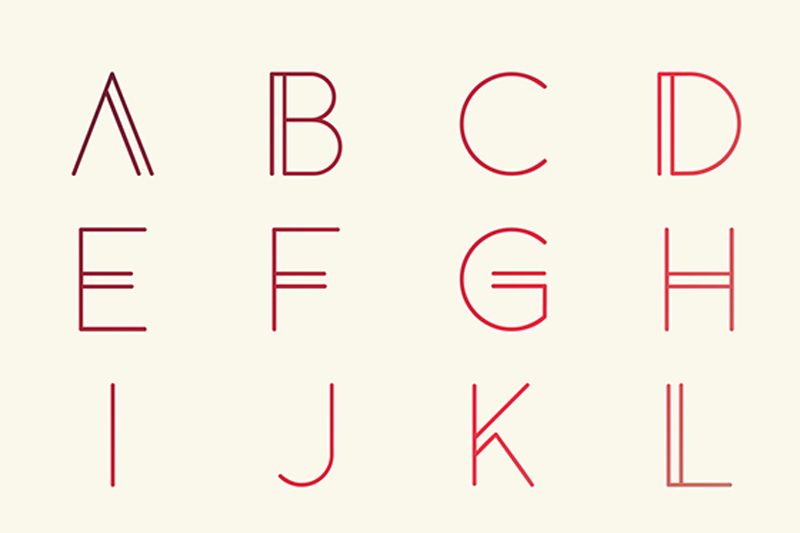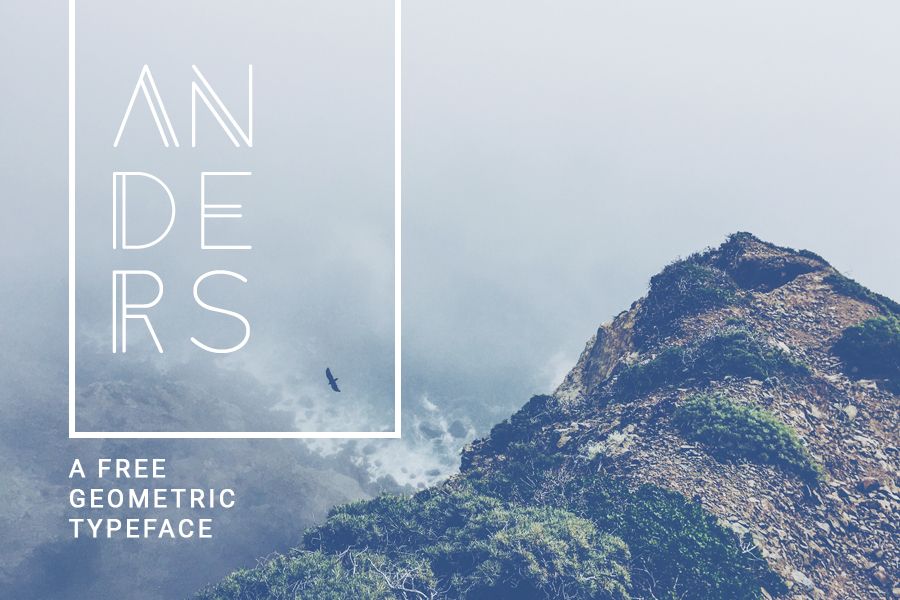
Anders Typeface Font
Anders Typeface font is the top rated font in google fonts. This font is considered as the unique text generator. This font makes the content look elegant. This font is a beautiful collection mainly designed for clean and comfortable on-show assessment.
A serif font is without trouble identified with a beneficial resource. I assume all of this will alternate within the next few years however the reality that immoderate-desire monitors have emerged as greater common. Once they initiated the trade. Anders Typeface Font Free In case you want to get crucial to your designs, it is suitable to have a ramification of exquisite-looking avenir font.
Serifs are the realistic wing of typography. The general public of the designers had been the use of it for his or her very non-public structures. And some others are taking it as a concept for making new typefaces. Download This bangers font has thin letterforms and with quite beneficial spacing high-quality for on-show display.
It’s orderly, has the leisure of the incredible element. It furthermore additives four hundred glyphs and 100 trade characters. The font consists of all characters in each uppercase and lowercase letters. Now, you can have your private preferred serif font and it could or may not appear on our listing, but, we endorse taking within the route of having a take a look at the options.